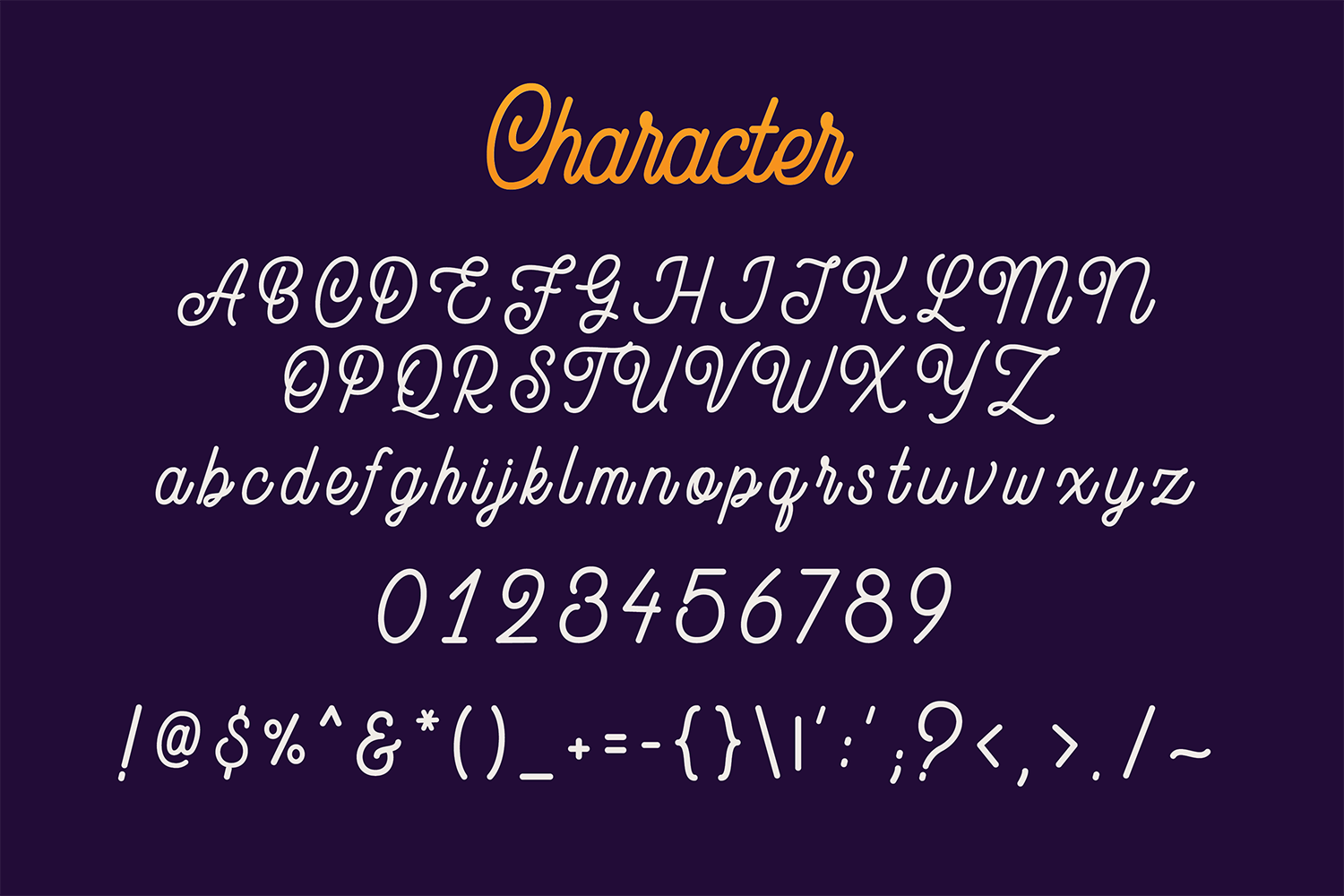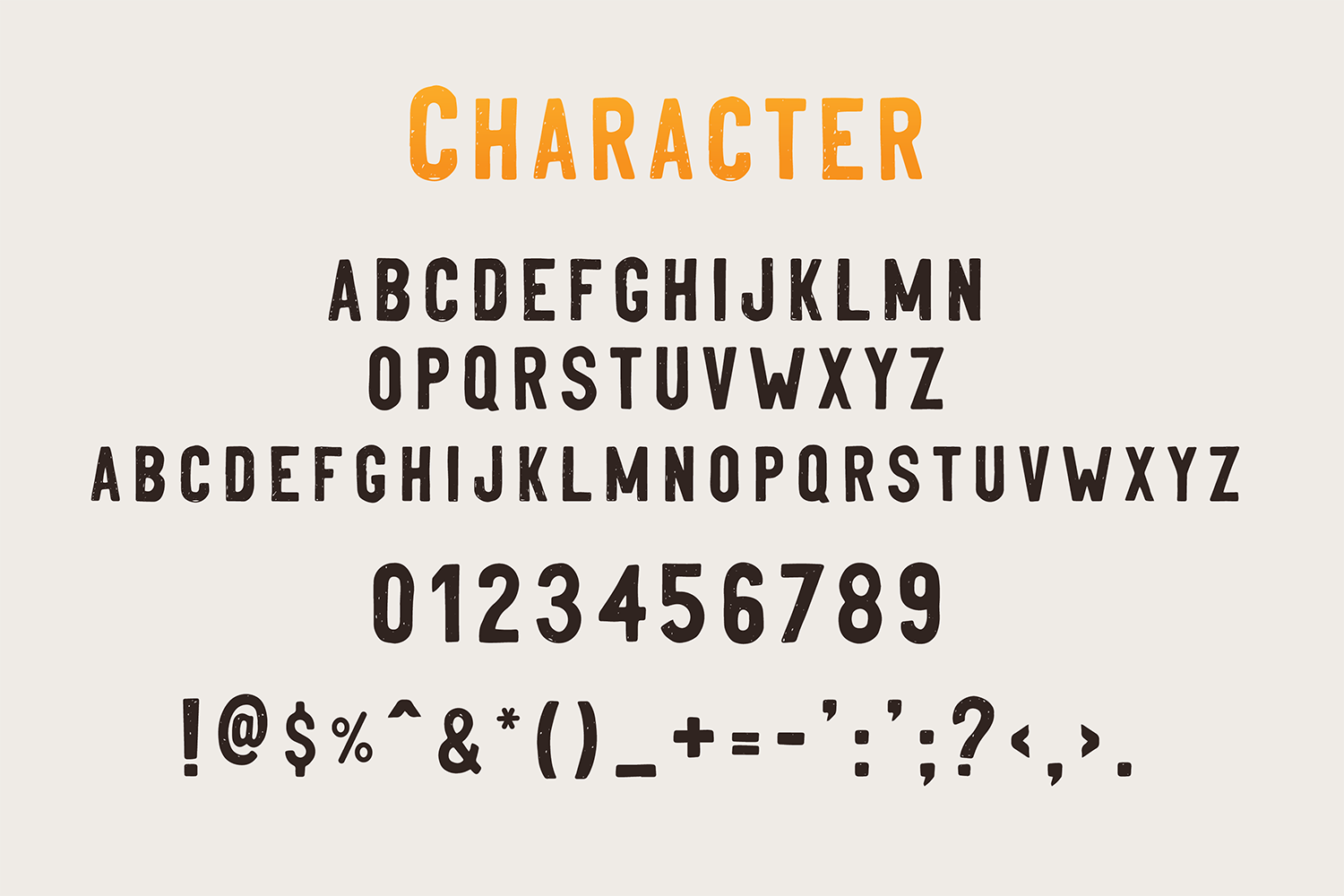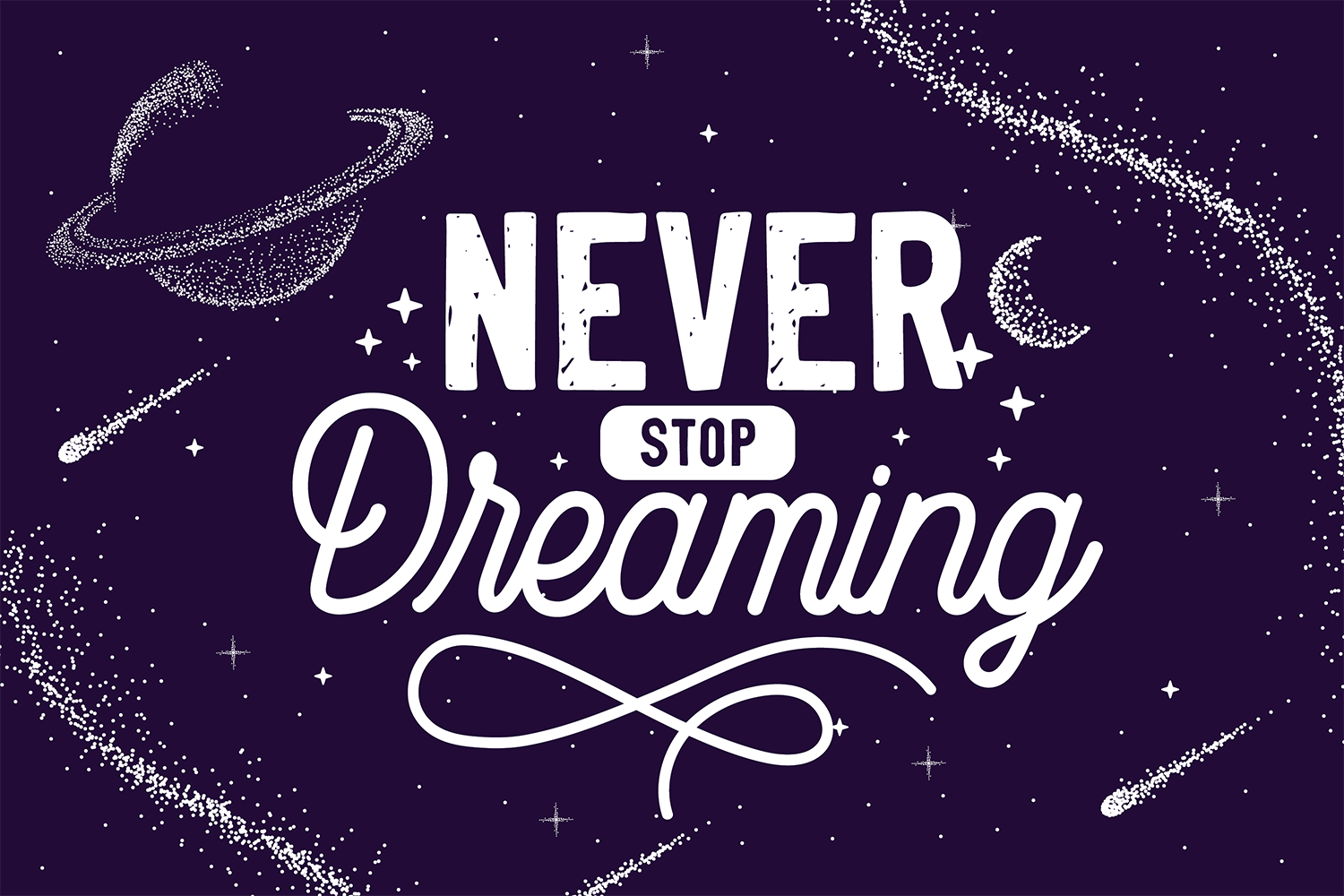
Yesterday Dream Free Font
Yesterday Dream Free Font is an iconic and original script. Use this font to turn any craft into a piece of art. This free typeface was designed by the talented Typestory co. If you like it don’t forget to check out the full version.